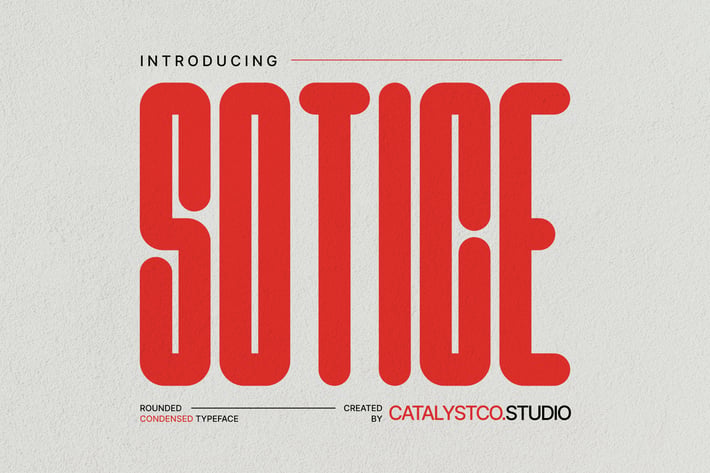
Sotice Rounded Condensed Font
SOTICE is a rounded condensed display font designed with a bold vertical presence and smooth geometric curves, giving it a strikingly modern and futuristic personality. Its extremely tall proportions and rounded terminals create a clean yet impactful rhythm, perfect for strong visual compositions. Crafted as a premium condensed typeface, SOTICE delivers clarity, efficiency, and distinct character in both digital and print applications. Ideal for designers seeking a modern bold font with a sleek, tech-inspired aesthetic.
Suitable for branding, posters, technology visuals, modern advertising, app interfaces, sports graphics, product packaging, editorial layouts, logo wordmarks, digital banners, music/event promotions, and any project needing a modern bold condensed aesthetic with a futuristic edge.
Ligatures & Alternate
Numeral & Punctuations